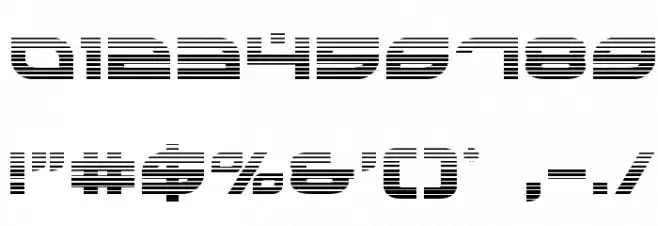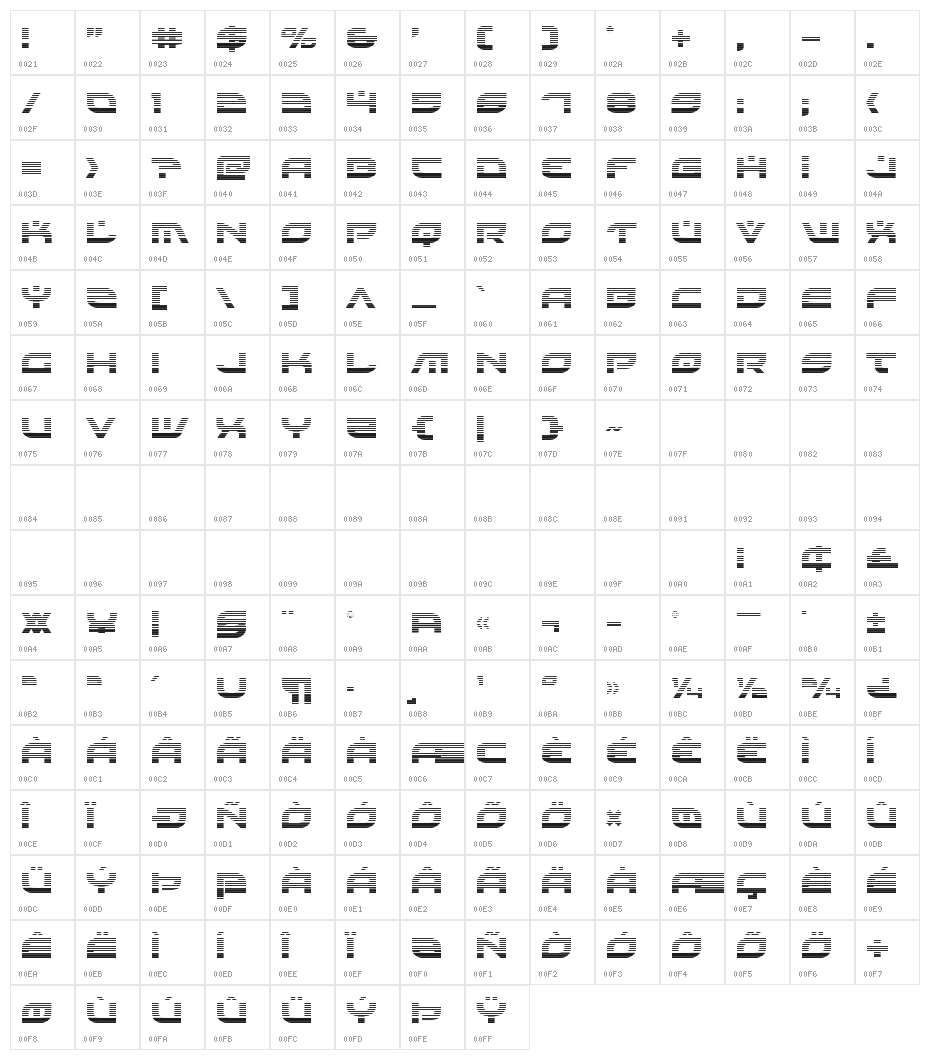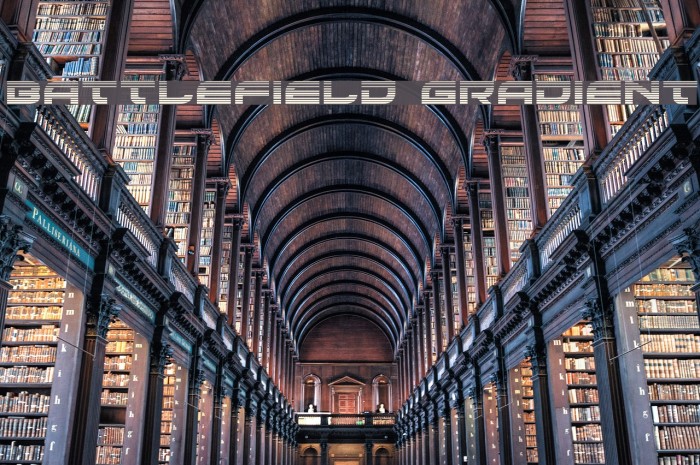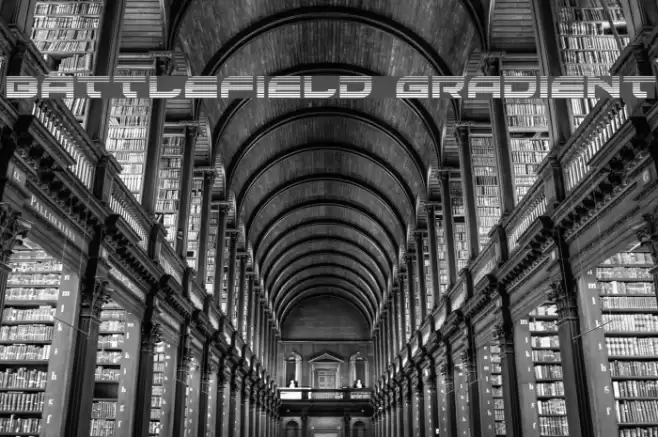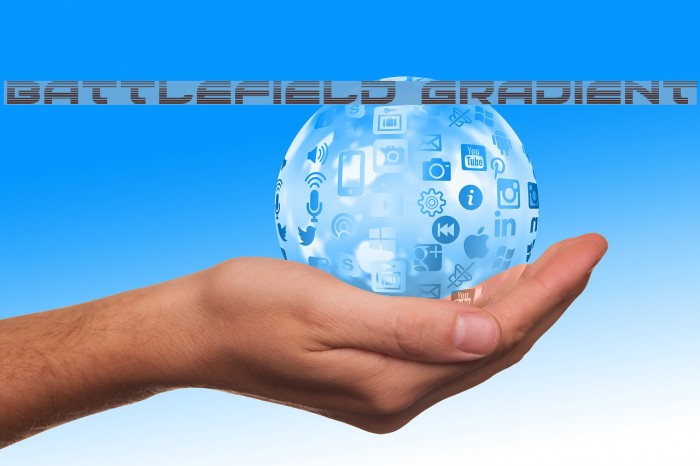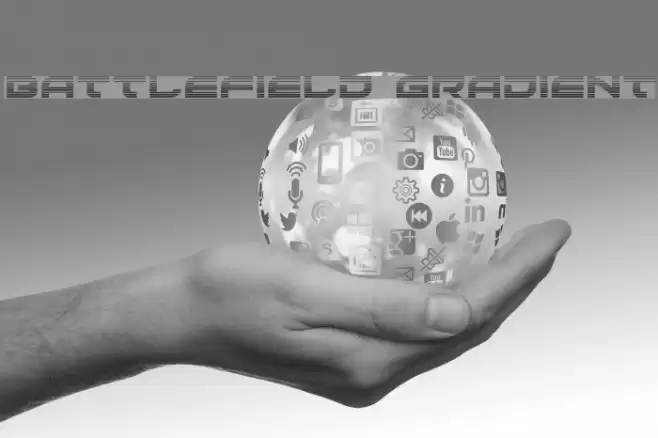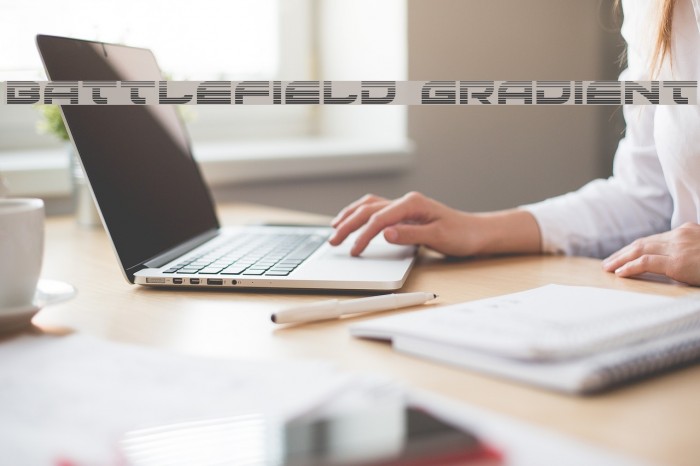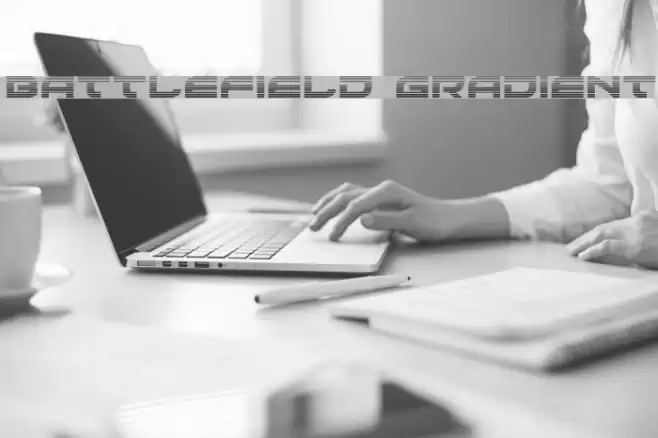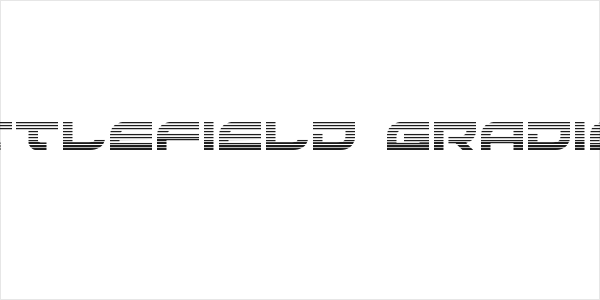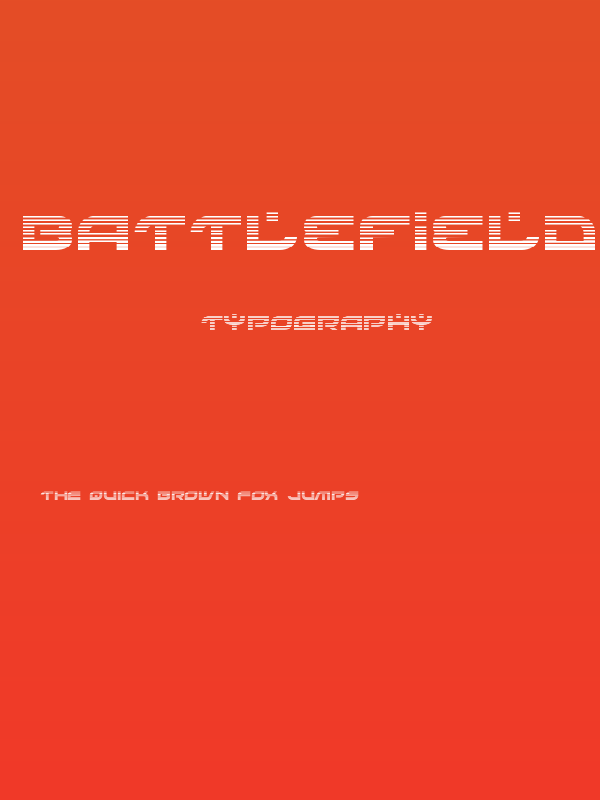
Battlefield Gradient Font
Battlefield Gradient Description
This font features a futuristic and digital aesthetic, characterized by its unique gradient-like horizontal lines that create a sense of movement and depth. The uppercase and lowercase letters, along with numbers and special characters, are designed with a consistent pattern of parallel lines, giving it a distinct and modern look. The style is reminiscent of digital displays or sci-fi themes, making it ideal for projects that require a cutting-edge or tech-oriented appearance. The characters are bold and have a strong presence, ensuring readability while maintaining a decorative flair.
Proposed ProjectsIdeal for tech-themed designs, sci-fi posters, video game titles, and digital interfaces.